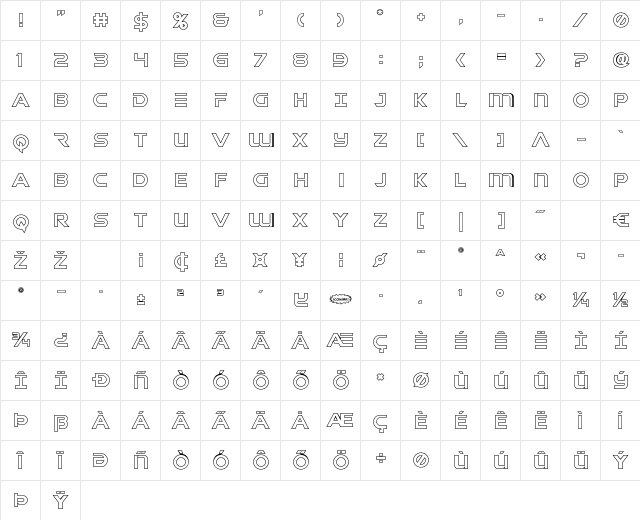
Singapore Sling Outline Regular Free Font
Singapore Sling Outline Regular
Complete Singapore Sling Outline Regular glyph index. Displaying only characters natively supported by Singapore Sling Outline Regular font.
Design Context for Singapore Sling Outline
Singapore Sling Outline is built around its visual character rather than neutral utility - its distinctive forms are designed to make an impression at display sizes.
Font Pairing: Pair with a clean neutral sans-serif for body copy to let Singapore Sling Outline's character lead without overwhelming the composition.
Pro Tip: Use Singapore Sling Outline exclusively at display sizes - it was designed to be seen, not read at length. Let a neutral companion handle body copy.